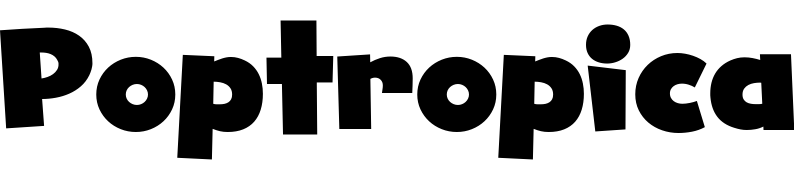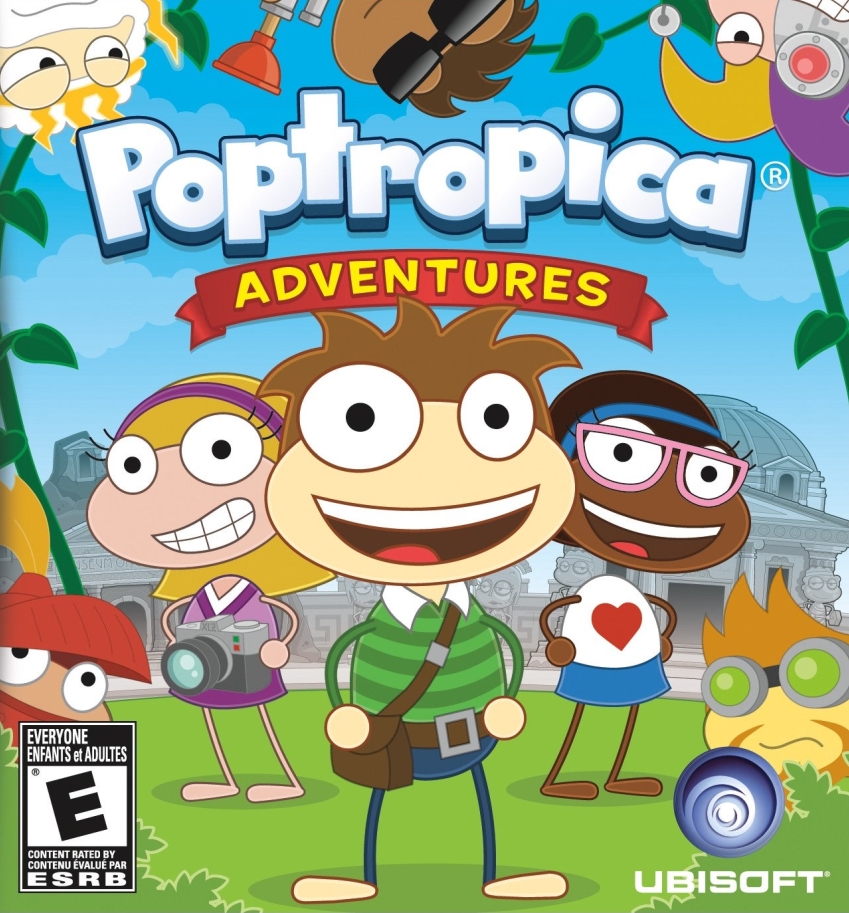
Poptropica Font
Fonts in UsePoptropica is a free online video game where players can create their own characters, explore various islands, complete quests, and interact with other players in a safe virtual world designed for children ages 6 to 15. It was launched in 2007 and has since become a popular educational tool for teachers to use in the classroom.
GhostKid AOE, a graffiti-influenced comic font created by Brian Bonislawsky, is the primary font used in the main logo. Additionally, House Industries' Housearama Kinpin is used for the text "ADVENTURES".